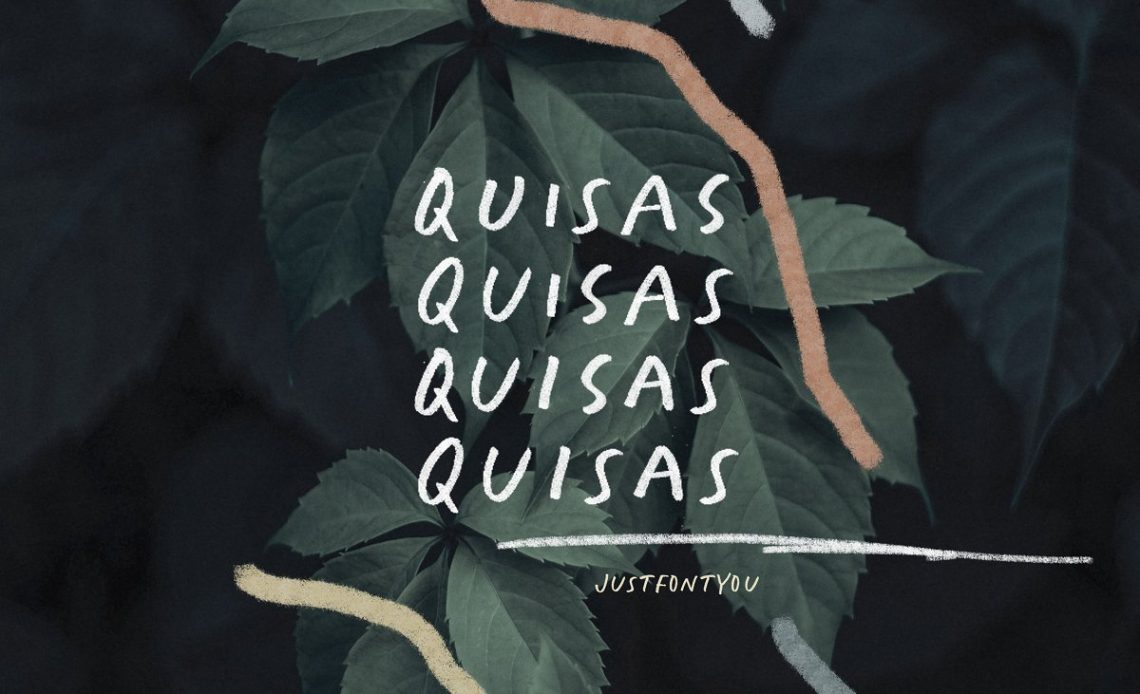
Introducing Quisas, the ultimate pack of quirky handwriting fonts that will take your design projects to the next level. Created by the talented Ian Irwanwismoyo, Quisas is a collection of all caps style fonts that mix uppercase and lowercase letters to create a fun and playful vibe.
But that's not all, Quisas also comes with an SVG version, perfect for those who want to achieve a more natural look in the latest Adobe Photoshop style. And with language support for Danish, Dutch, English, Filipino, Finnish, French, Galician, German, Icelandic, Indonesian, Irish, Italian, Norwegian Bokmål, Norwegian Nynorsk, Portuguese, Romansh, Spanish, Swahili, Swedish, Swiss German, you can rest assured that Quisas will support your language needs.
Whether you're a graphic designer, blogger, or simply someone who wants to add a touch of personality to their designs, Quisas is the perfect choice. The loose, handwritten style adds a touch of whimsy to any project, and the all caps design is perfect for creating eye-catching headlines and titles.